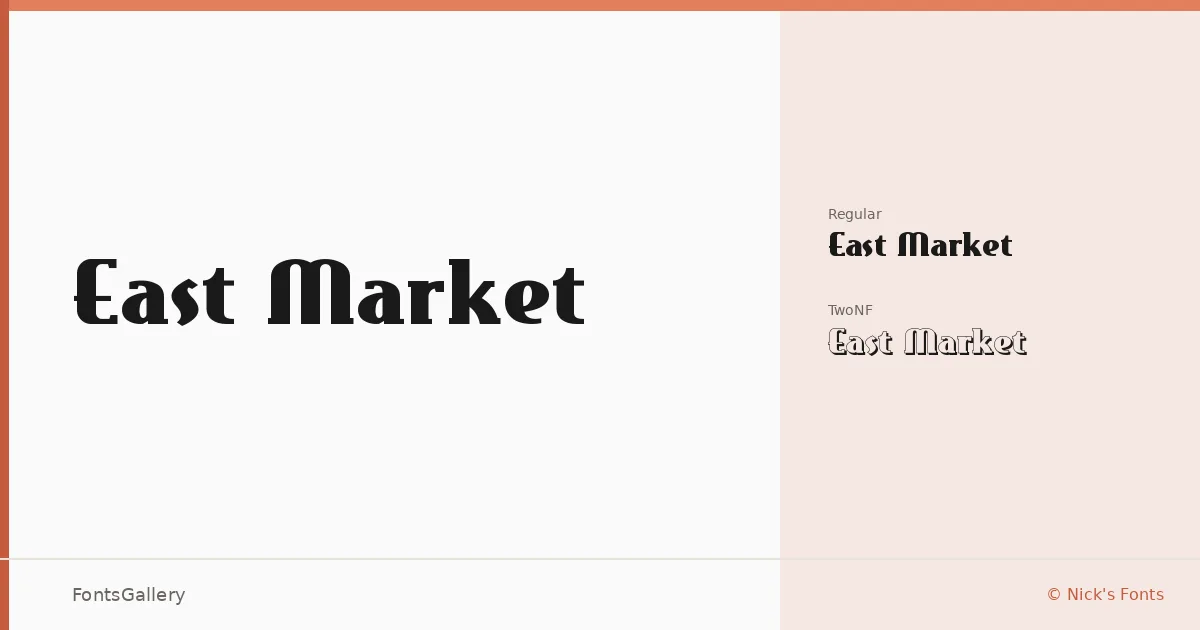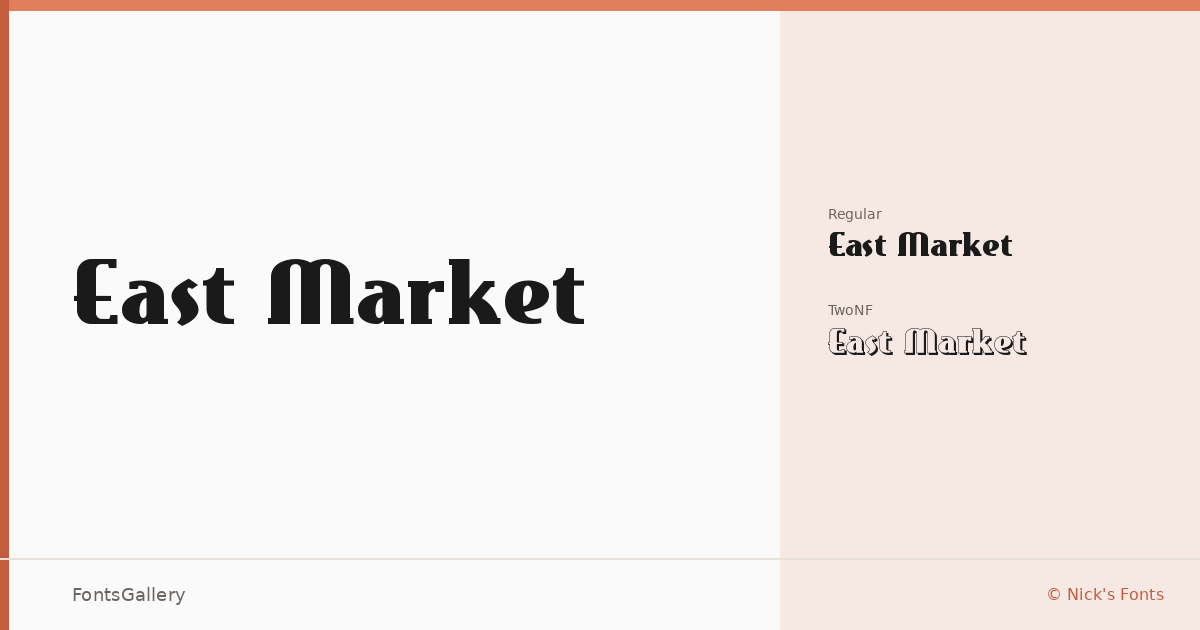
About East Market Font
There is a deliberate weight to these letterforms — the kind of commanding presence you associate with hand-lettered signage and vintage commercial printing. Nick Curtis of Nick's Fonts drew this display face, and it arrives in two distinct cuts: EastMarketNF Regular and EastMarketTwoNF Regular, each offering its own variation on the same bold, classic character.
This is a display typeface with a strong vintage sensibility — elegant in its proportions but unapologetically bold in presence. The two styles give you enough variation to build hierarchy within a single project while keeping the tone consistent: classic, unhurried, and rooted in an era when letterforms were drawn to stop people in the street. Both come as TTF and OTF files, with Latin coverage throughout.
It earns its keep in headlines, posters, magazine mastheads, branding systems, and logo work — anywhere the type needs to carry weight before a single word is read. For contrast, the clean neutrality of Helvetica or Aileron works well against its vintage warmth, while the editorial softness of Canela or Anglecia Pro lets it breathe in more refined layouts; Abrade offers a more contemporary geometric counterpoint.